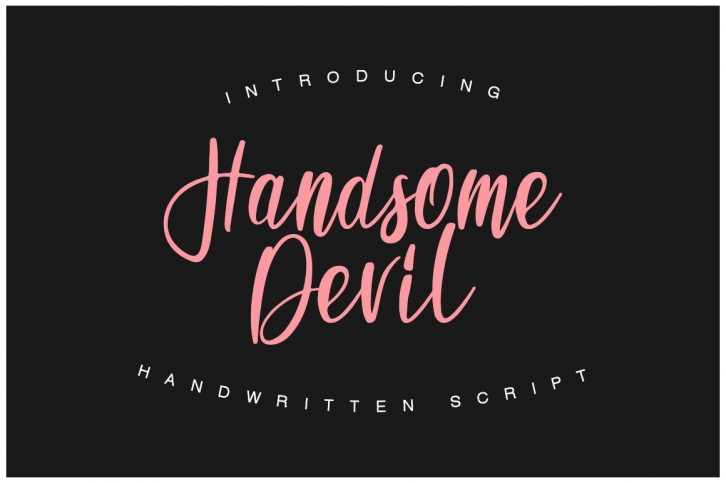
HandsomeDevil - a new fresh handmade calligraphy font. Very suitable for greeting cards, branding materials, business cards, quotes, posters, and more!
This font are perfect for wedding postcard. Or you can create perfect and unique design of your logo, blog, stationery, marketing, magazines and more :)